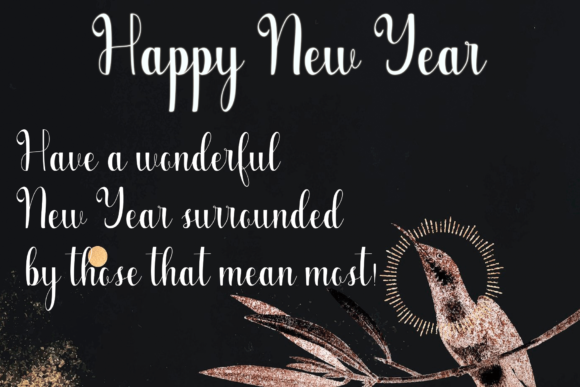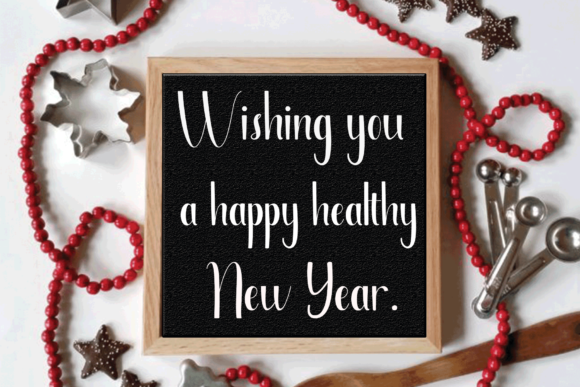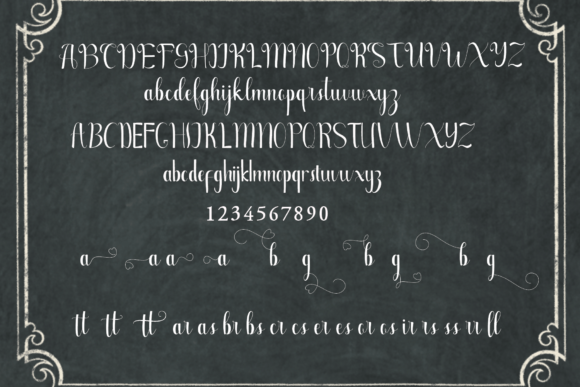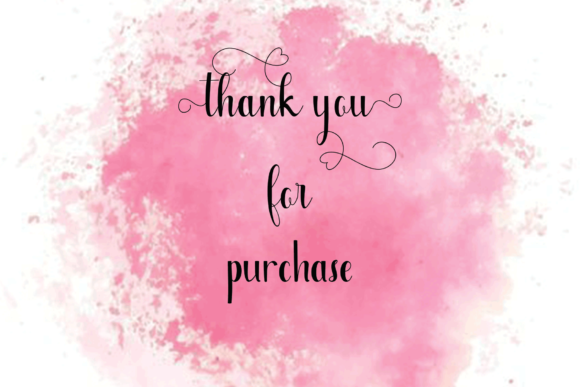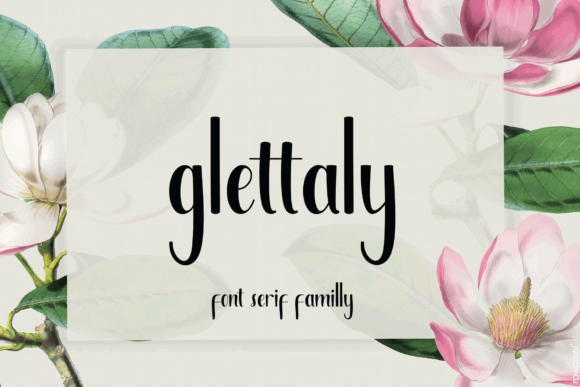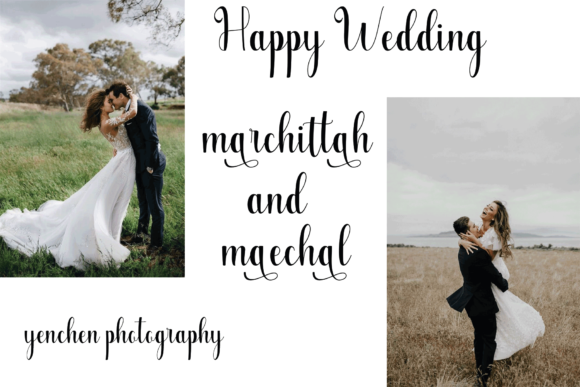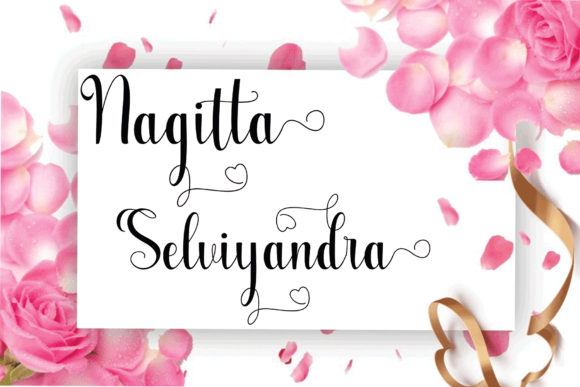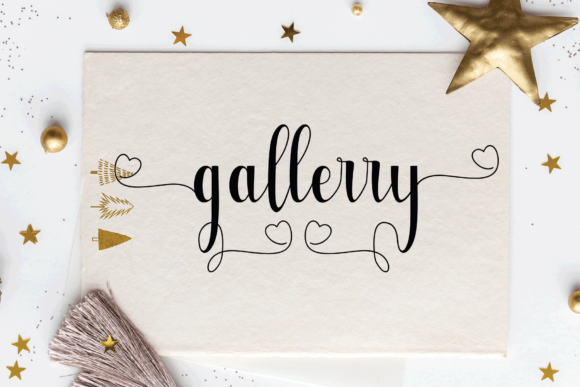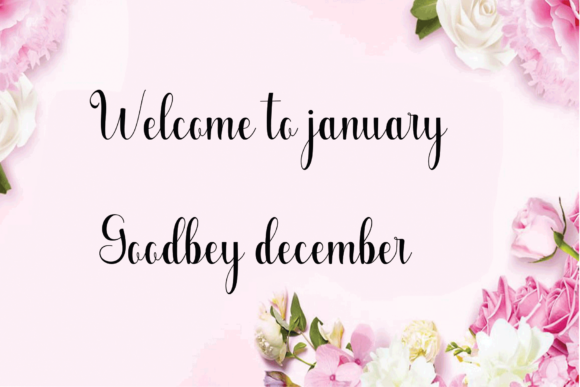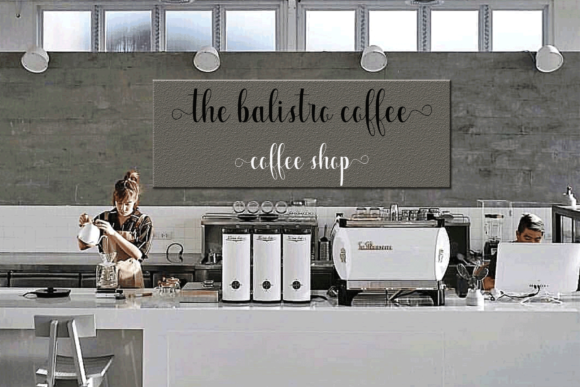
Glettaly Font
About Glettaly Font
Glettaly is full of heart swashes that will add a romantic twist to any craft. It will work especially well for Valentine’s crafts!